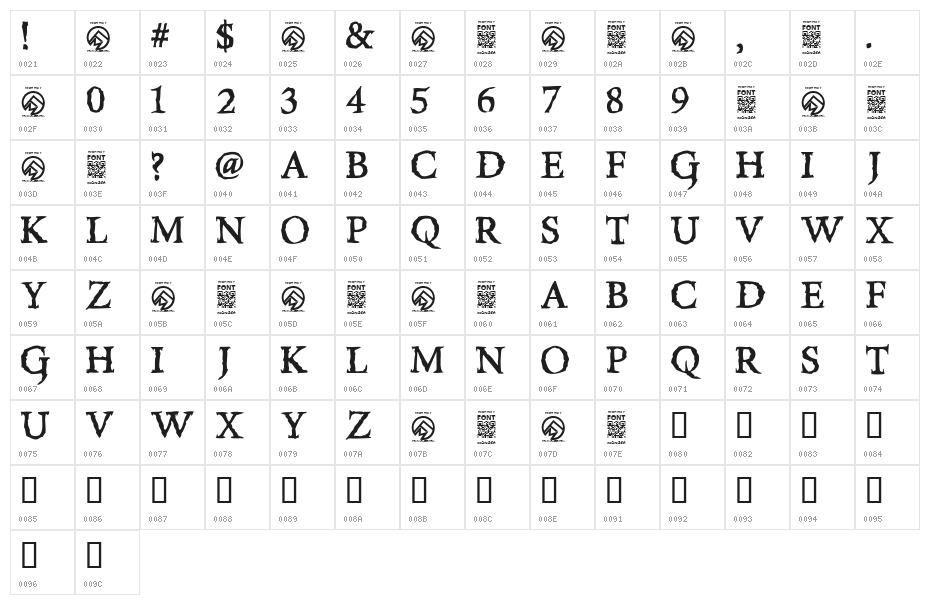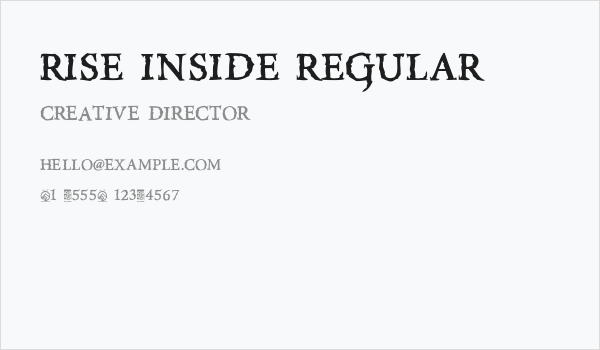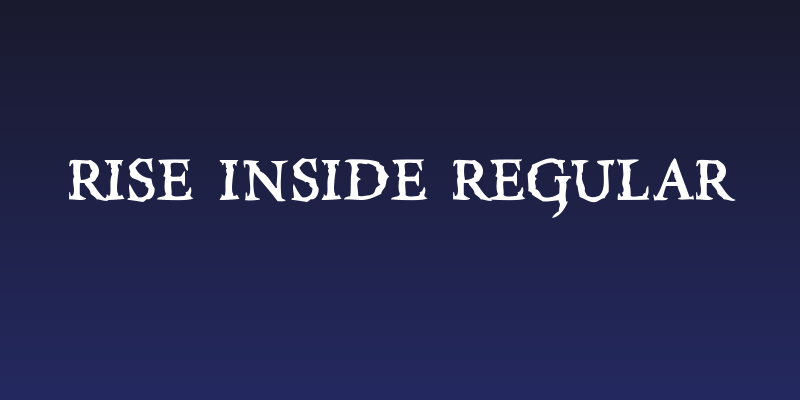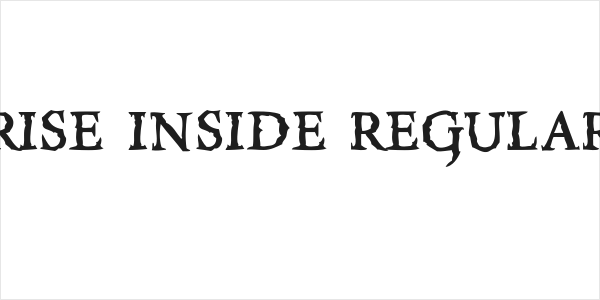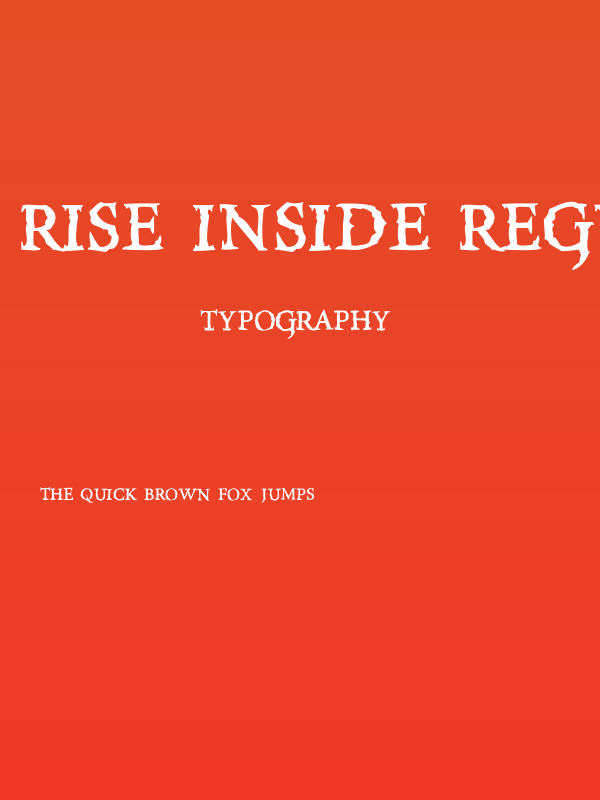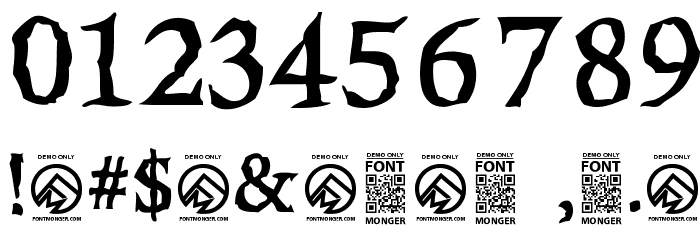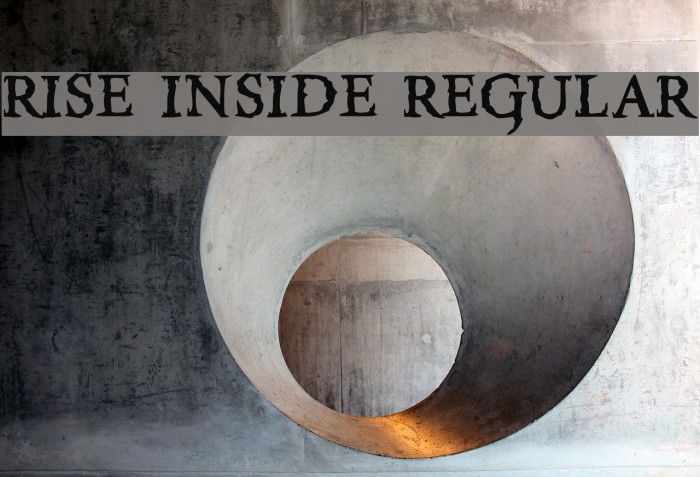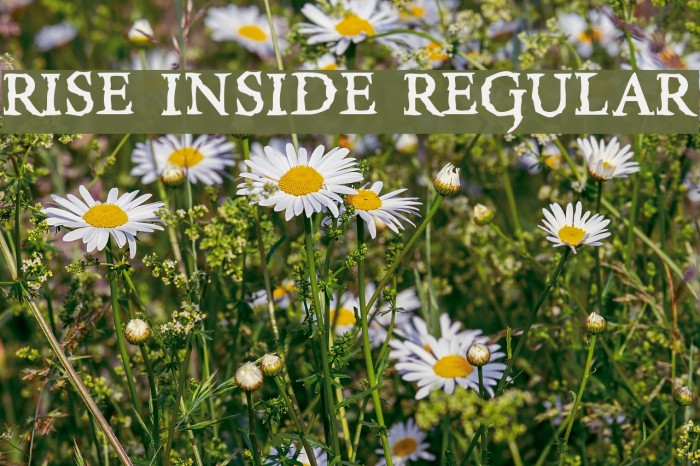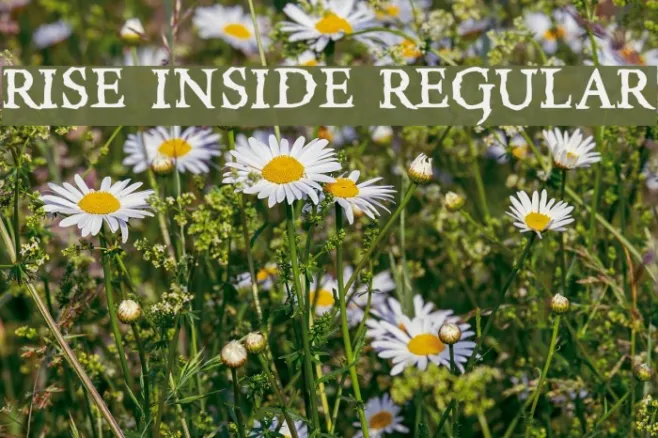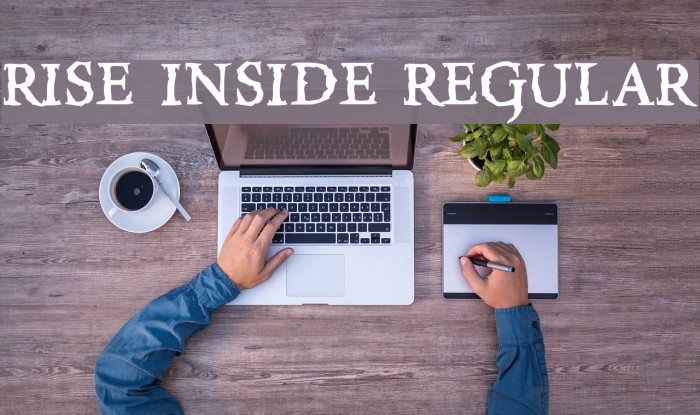
Rise Inside Regular Font
Rise Inside Regular Description
This font features a bold and rugged style with sharp, angular edges and a distressed appearance. The characters have a hand-drawn quality, giving them a unique and edgy look. The uppercase and lowercase letters maintain a consistent design, with the uppercase being slightly more pronounced. The numbers and special characters follow the same aesthetic, ensuring a cohesive appearance across all glyphs. This font's distinctive style makes it stand out, ideal for projects that require a strong visual impact.